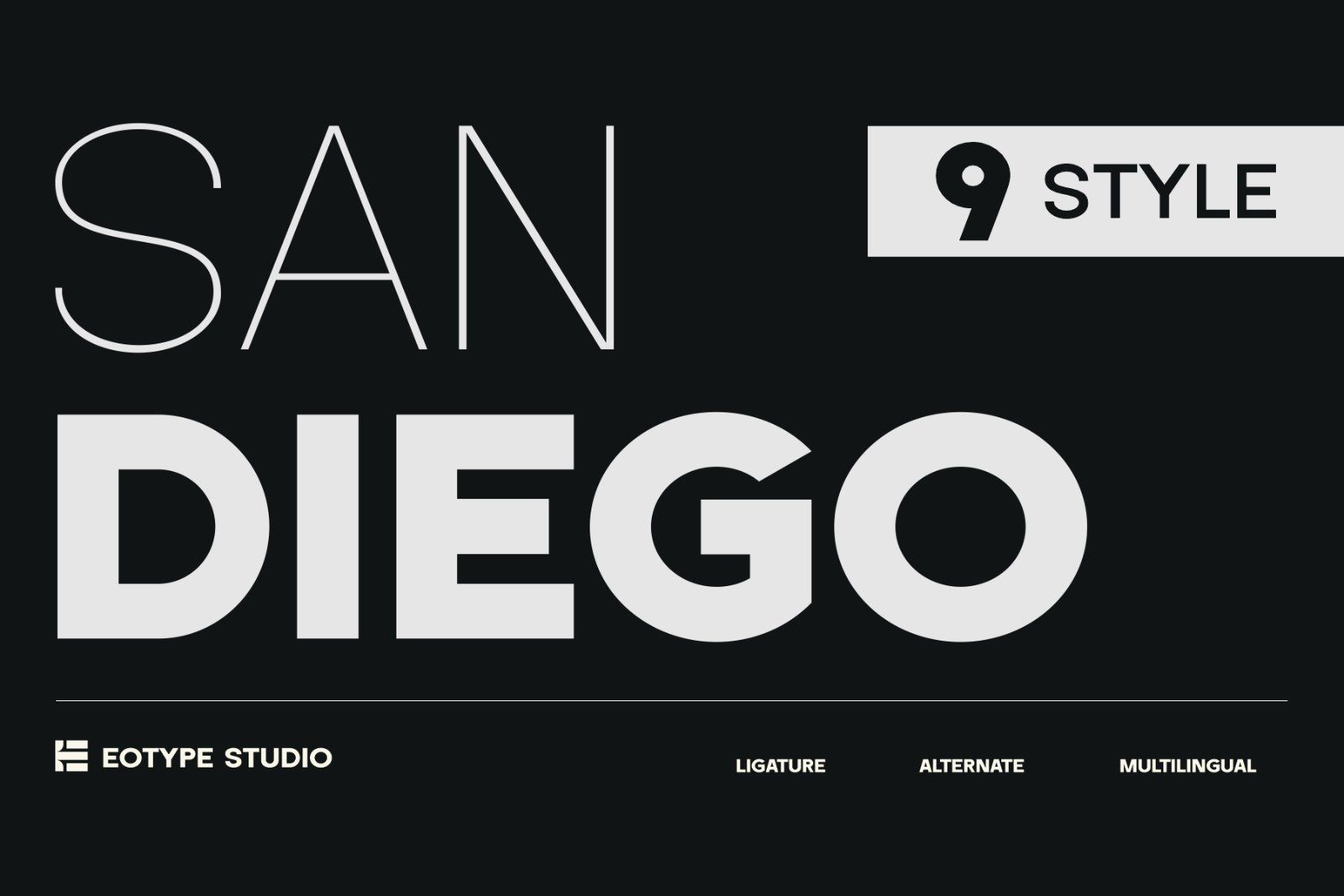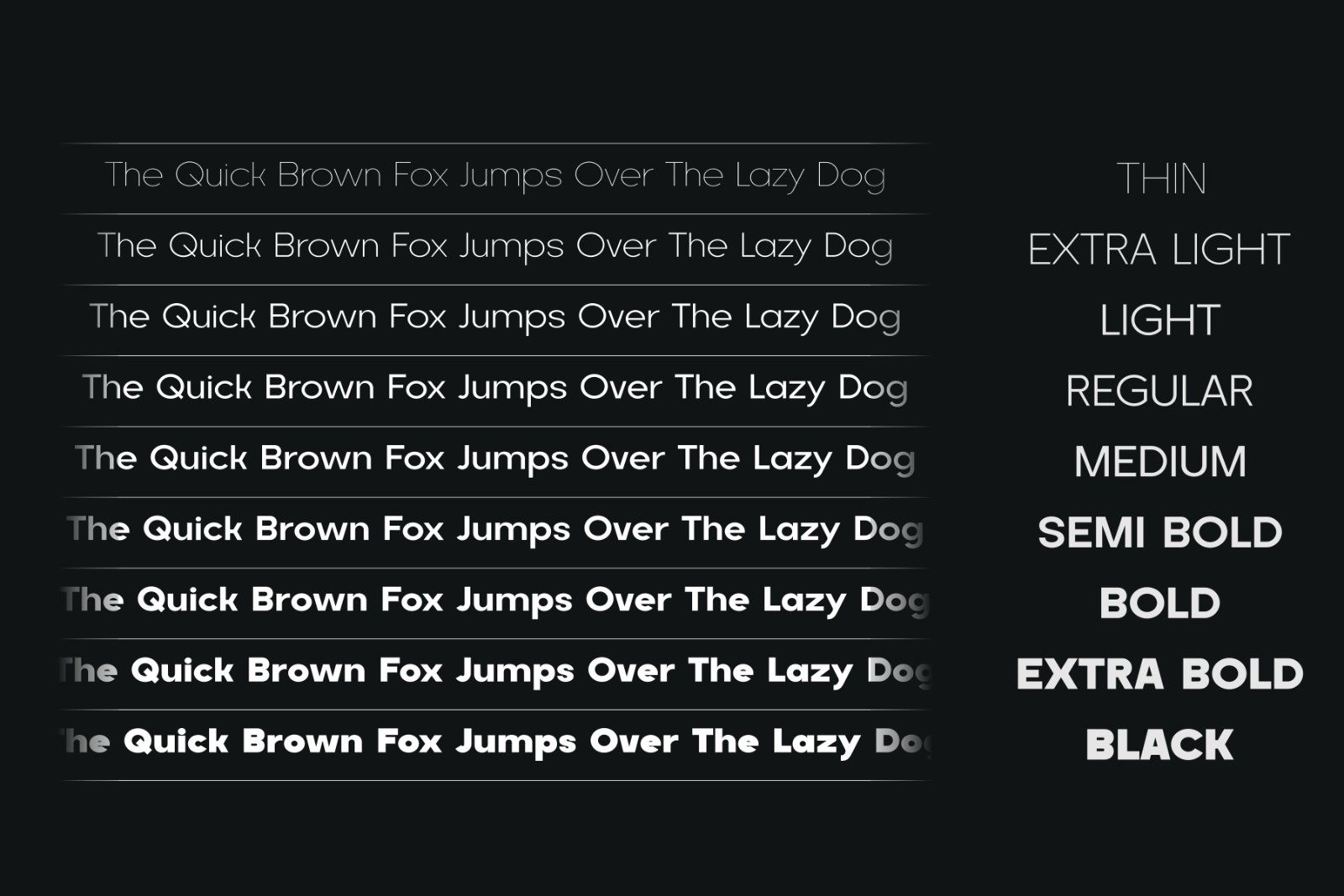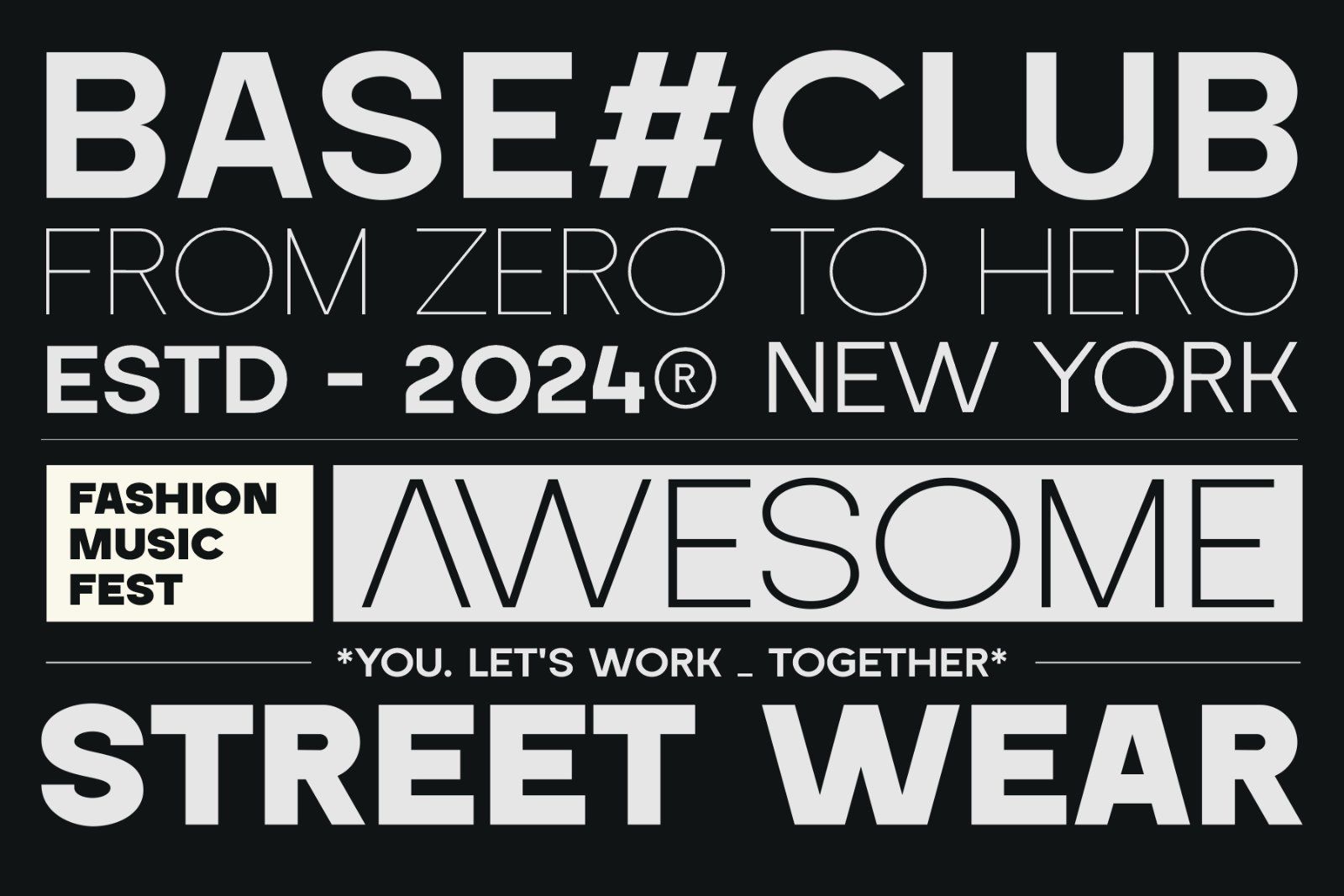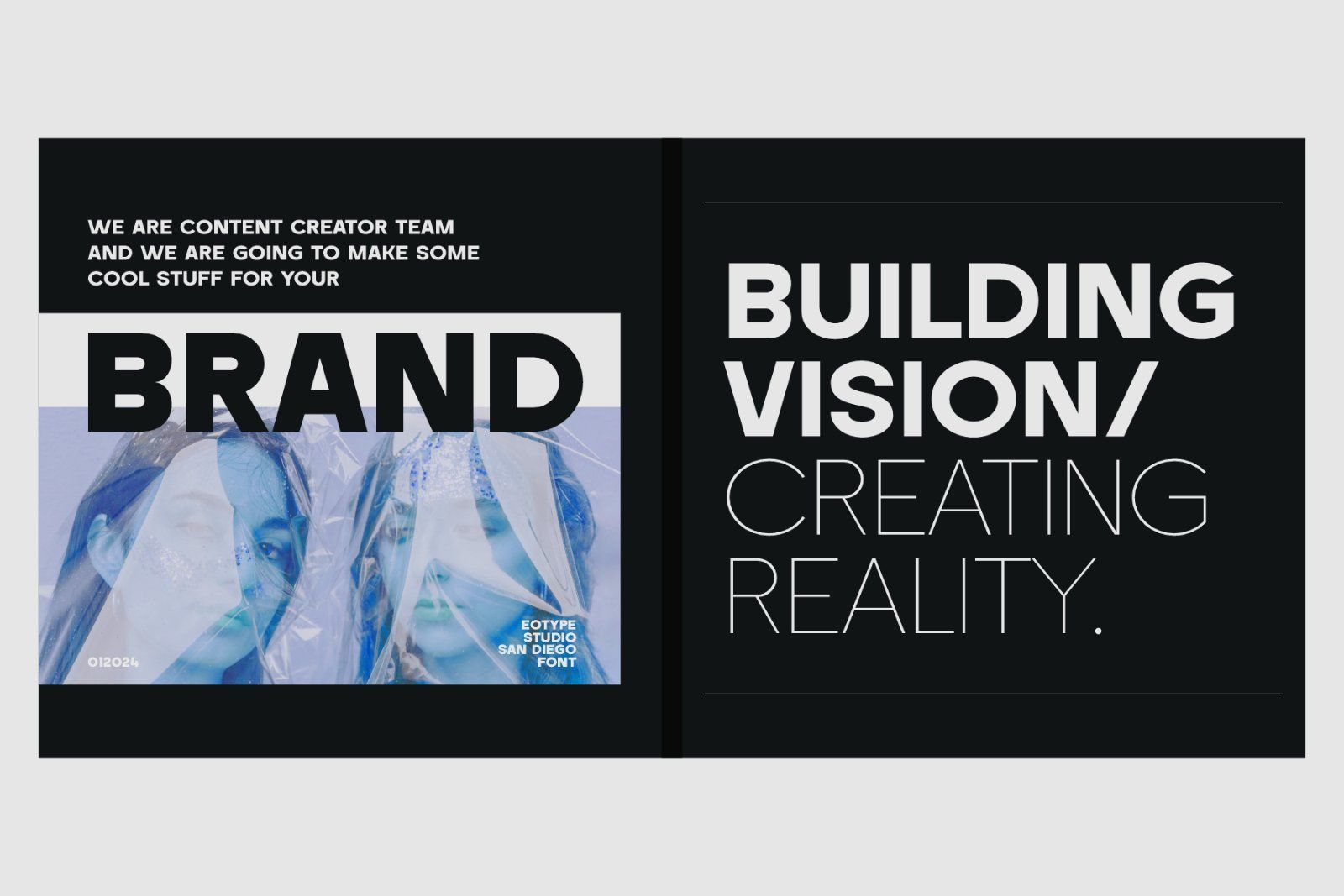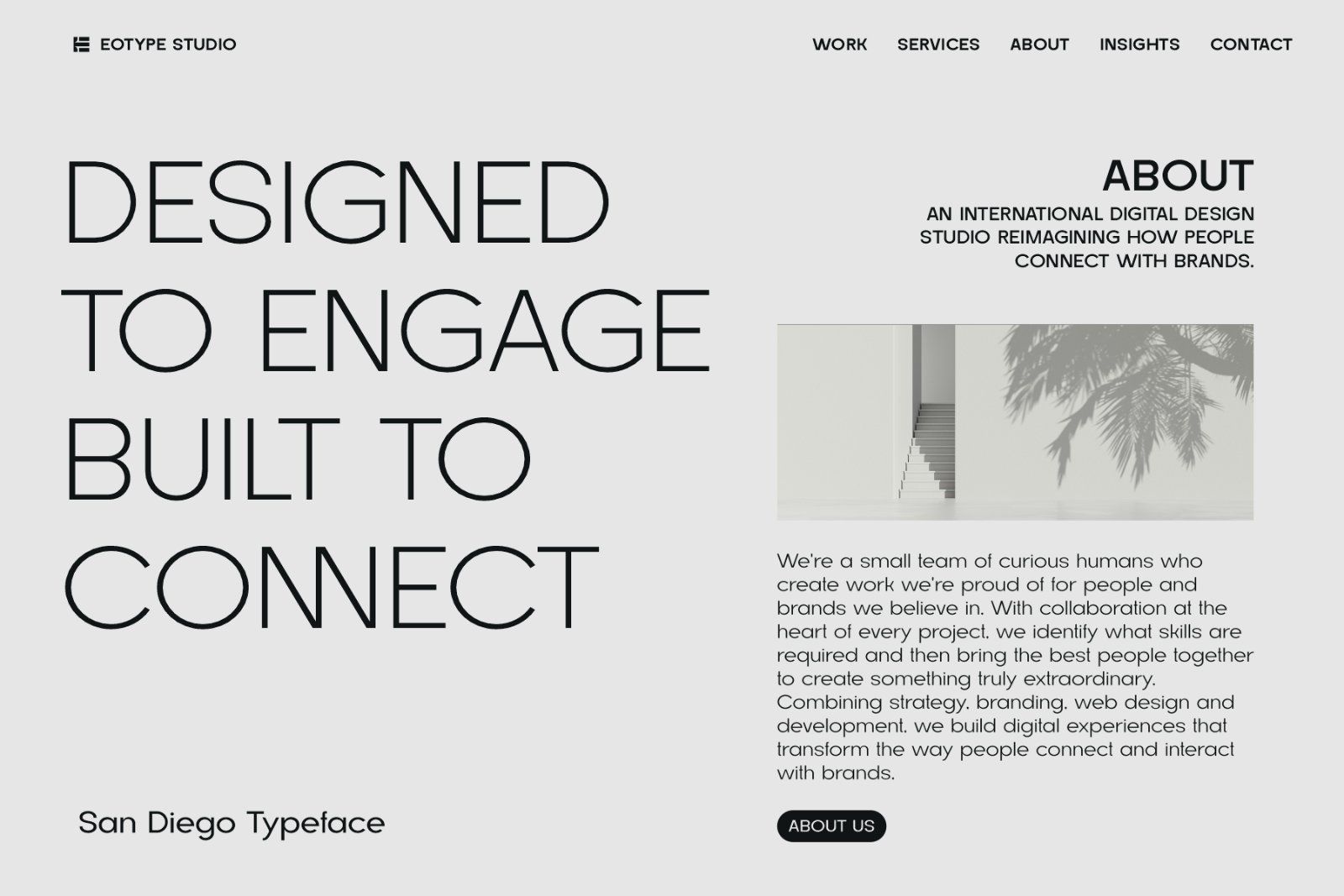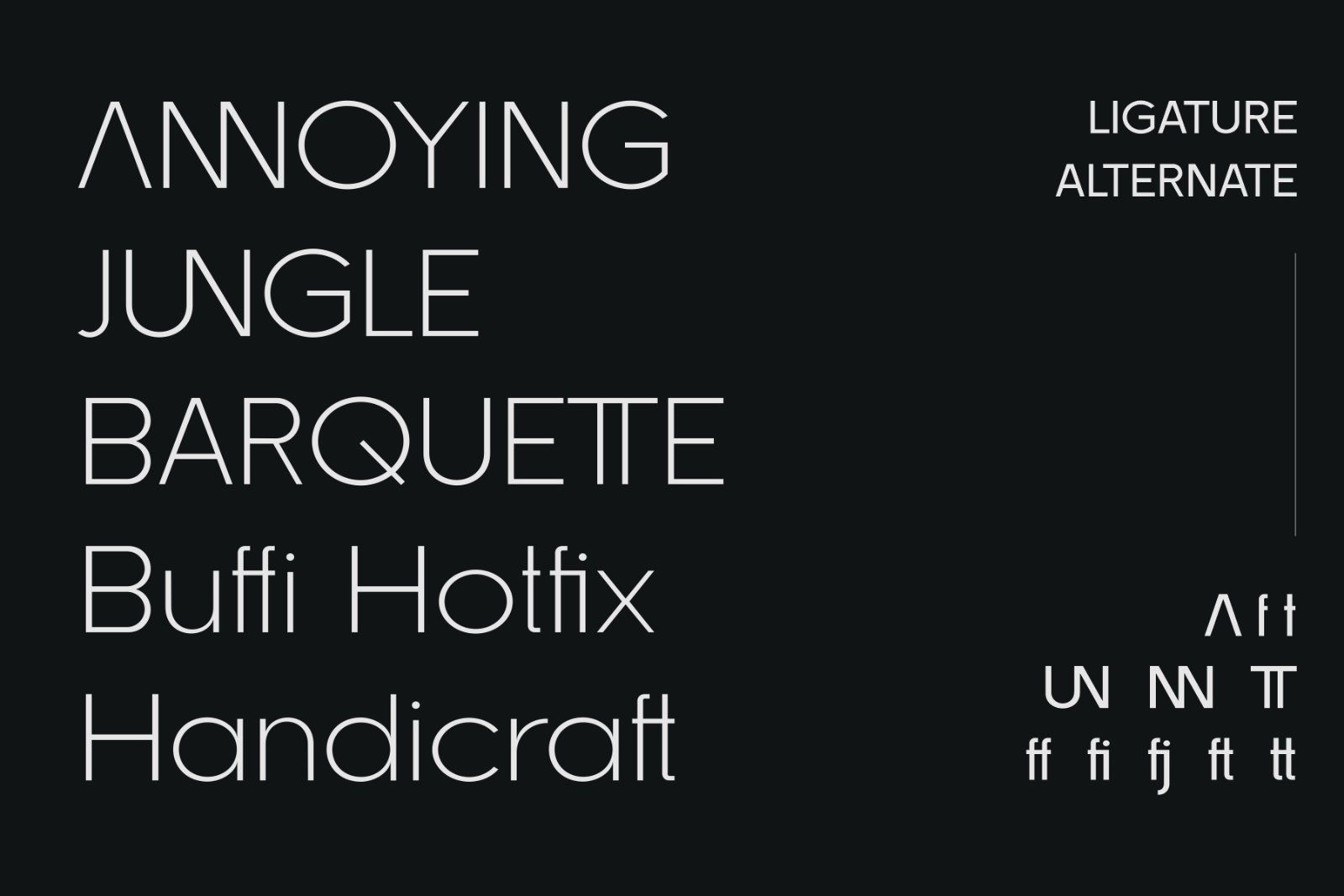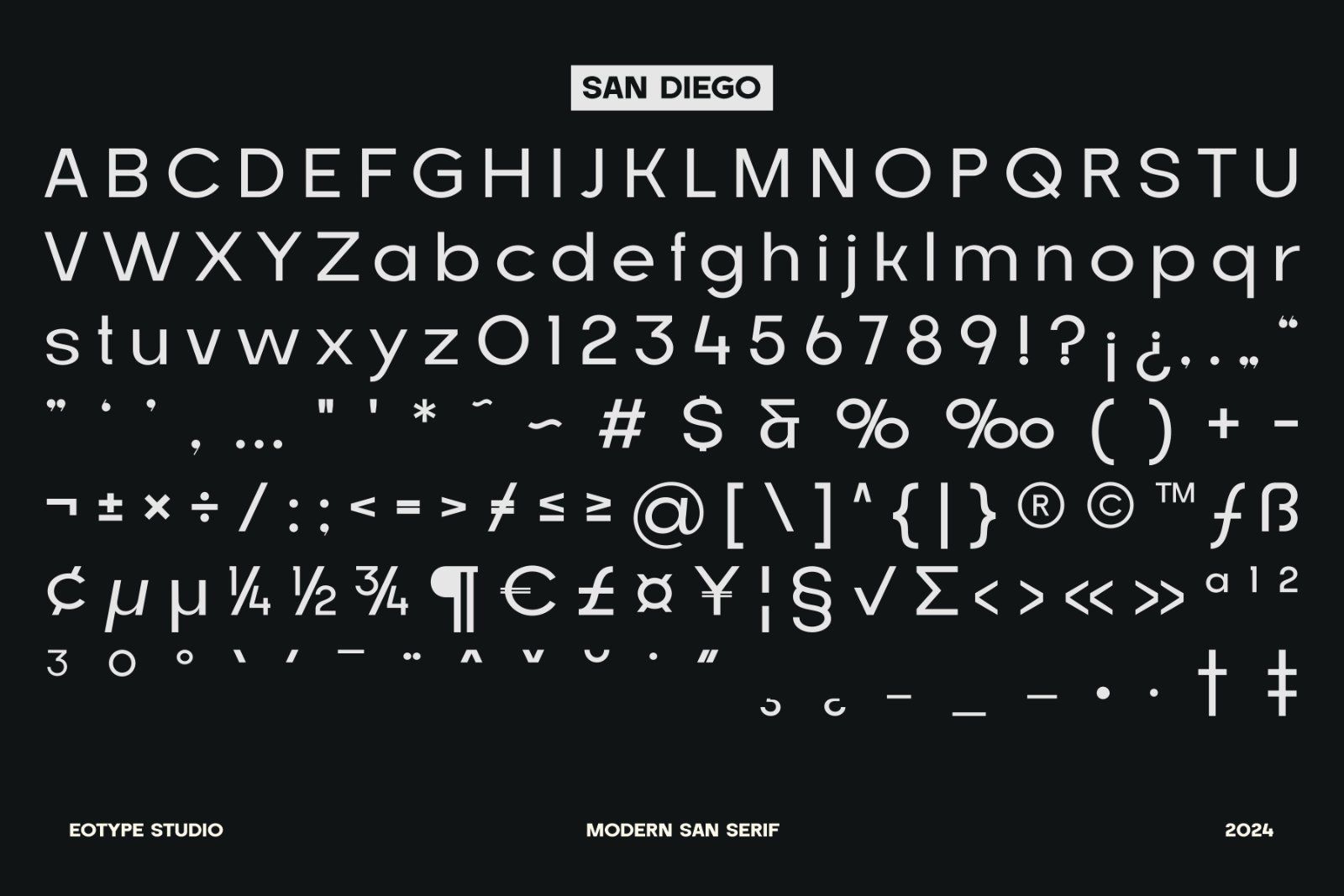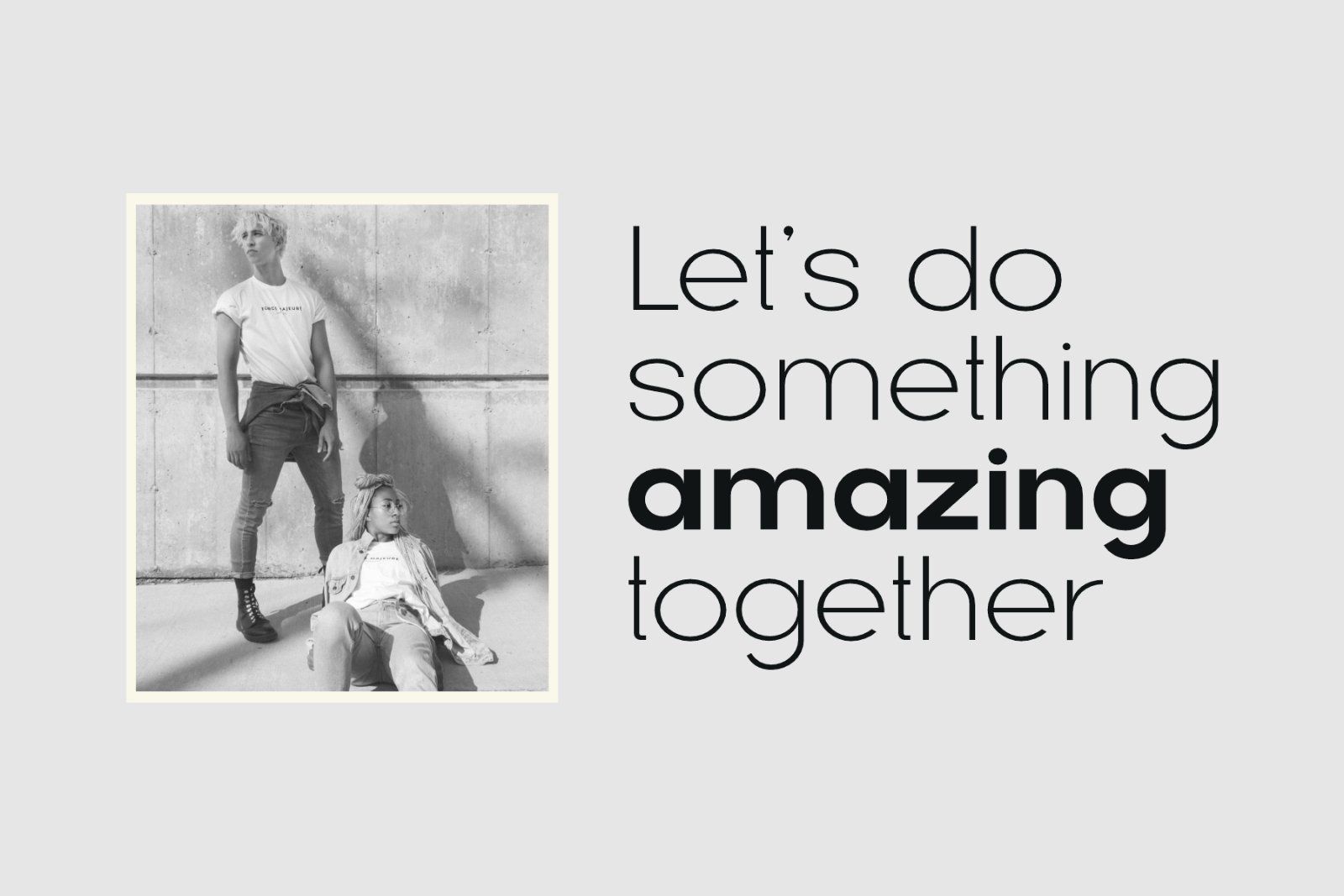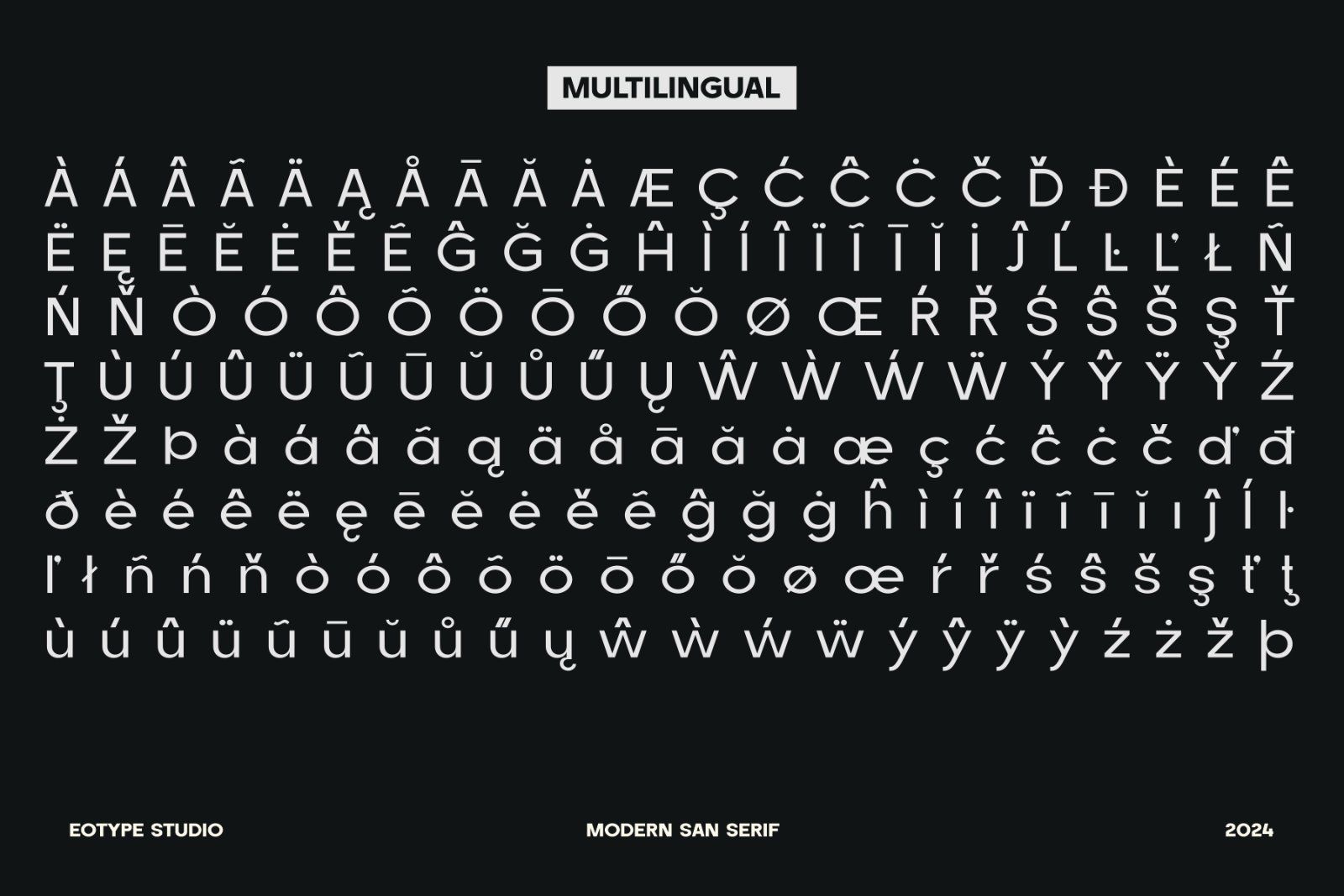
San Diego is a new modern sans serif font created by Eotype studio consisting of 9 styles. The glyph shape characterized by geometric aesthetic outline. San Diego font suitable for various projects such as logos, brands, posters and many more. This font comes with alternate and ligature features.